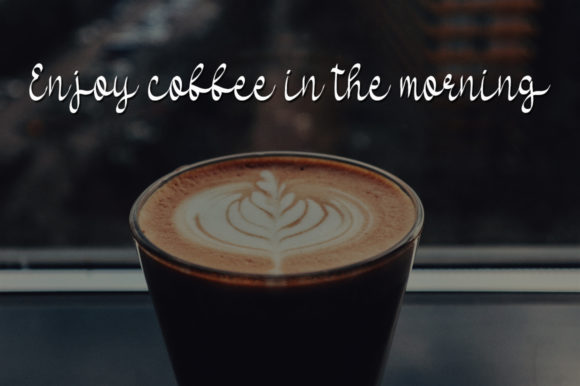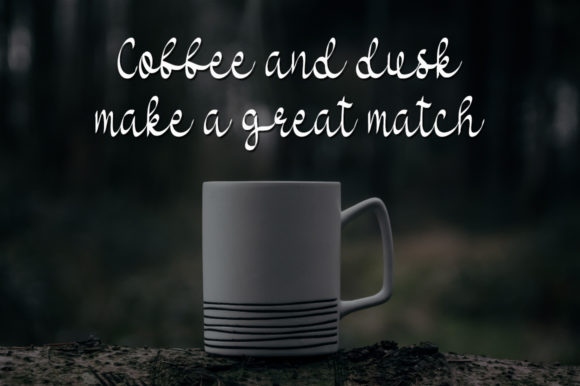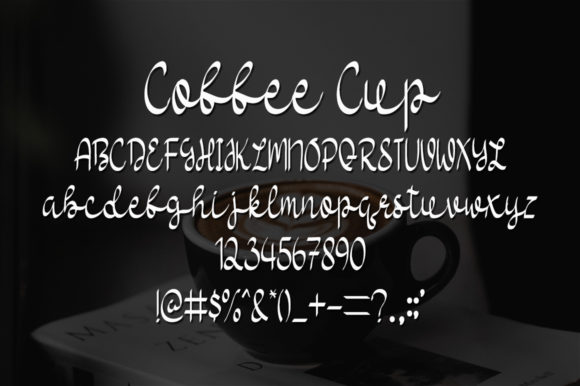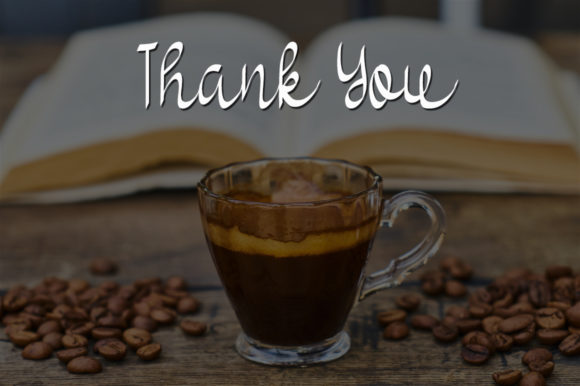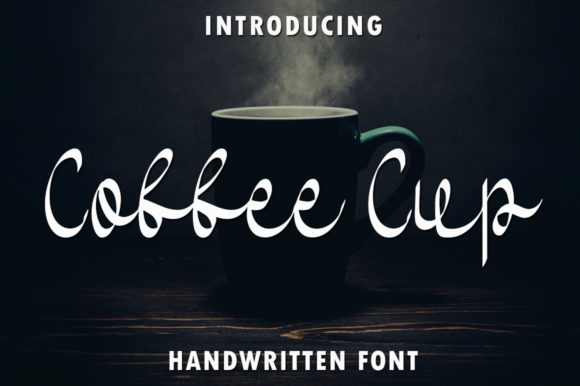
Coffee Cup Font: The Perfect Addition to Your Creative Projects
Are you a designer, crafter, or DIY enthusiast looking for a unique and charming font to elevate your creative projects? Look no further than the Coffee Cup Font, a delicate and sweet handwritten font that is sure to bring a touch of warmth and personality to your designs.
What is Coffee Cup Font?
Coffee Cup Font is a beautiful and elegant handwritten font that is inspired by the curves and lines of a coffee cup. It features well-balanced characters that are both refined and playful, making it an excellent choice for a wide range of design projects. Whether you’re creating a logo, branding materials, or social media graphics, Coffee Cup Font is the perfect addition to bring a touch of sophistication and whimsy to your work.
Characteristics of Coffee Cup Font
Coffee Cup Font boasts a range of characteristics that make it an excellent choice for designers and crafters. Some of its key features include:
- Delicate and sweet: Coffee Cup Font has a gentle and charming quality that makes it perfect for designs that require a touch of elegance and refinement.
- Well-balanced characters: The font features beautifully balanced characters that are both visually appealing and easy to read.
- Versatile: Coffee Cup Font matches a wide pool of designs, making it an excellent choice for a range of creative projects.
How to Use Coffee Cup Font
Coffee Cup Font is an incredibly versatile font that can be used in a wide range of design projects. Here are just a few ideas to get you started:
- Branding and logos: Use Coffee Cup Font to create a unique and memorable logo that reflects your brand’s personality and style.
- Social media graphics: Add a touch of elegance and sophistication to your social media graphics with Coffee Cup Font.
- Stationery and invitations: Use Coffee Cup Font to create beautiful and eye-catching stationery and invitations that are sure to impress.
- Crafting and DIY projects: Coffee Cup Font is perfect for crafters and DIY enthusiasts who want to add a personal touch to their projects.
Why Choose Coffee Cup Font?
There are many fonts to choose from, but Coffee Cup Font stands out from the crowd for several reasons:
- Unique and distinctive: Coffee Cup Font has a unique and distinctive quality that sets it apart from other fonts.
- Elegant and refined: The font has an elegant and refined quality that makes it perfect for designs that require a touch of sophistication.
- Easy to read: Coffee Cup Font is easy to read, making it perfect for designs that require a clear and concise message.
Tips for Using Coffee Cup Font
Here are a few tips for using Coffee Cup Font in your design projects:
- Pair with bold fonts: Pair Coffee Cup Font with bold fonts to create a striking contrast that adds visual interest to your design.
- Use in combination with images: Use Coffee Cup Font in combination with images to add a touch of elegance and sophistication to your design.
- Experiment with colors: Experiment with different colors to find the perfect combination that complements Coffee Cup Font.
Coffee Cup Font is a beautiful and elegant handwritten font that is perfect for designers, crafters, and DIY enthusiasts. Its delicate and sweet quality makes it an excellent choice for a wide range of design projects, from branding and logos to social media graphics and crafting projects. With its well-balanced characters and versatile nature, Coffee Cup Font is sure to bring a touch of warmth and personality to your designs. So why not give it a try and see how it can elevate your creative projects?